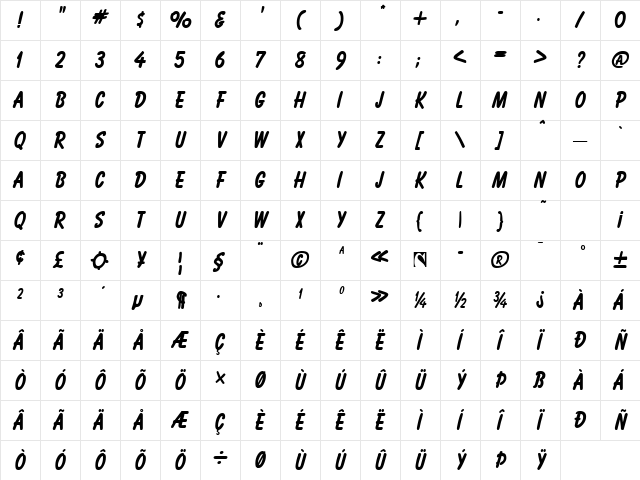
Balloonist normal
Style: normal
Balloonist Family
Design Context for Balloonist
Balloonist is a composed and adaptable typeface that performs quietly and consistently across a wide range of design contexts.